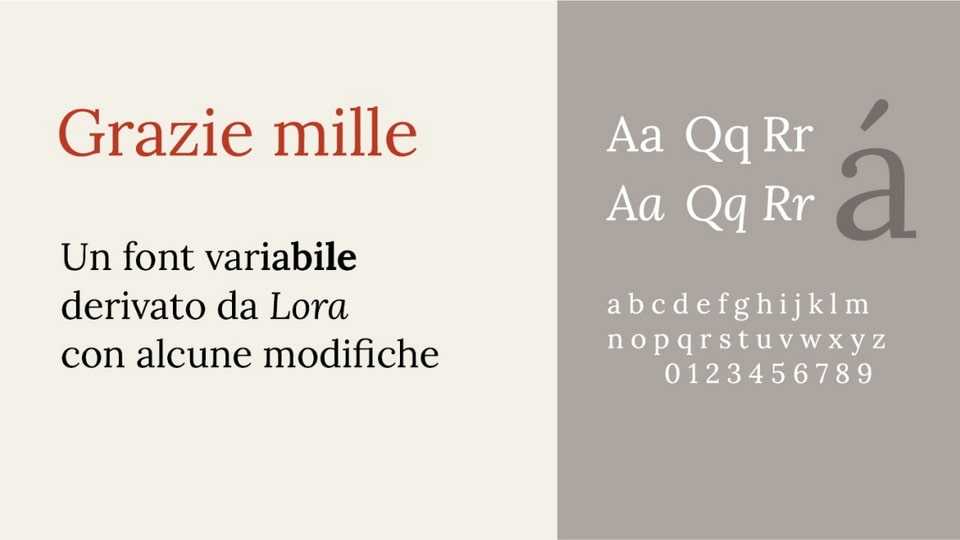
Download Grazie Mille font, a variable serif typeface based on the Lora typography, blending contemporary aesthetics with a touch of calligraphic elegance.
Designer: Michele Casanova